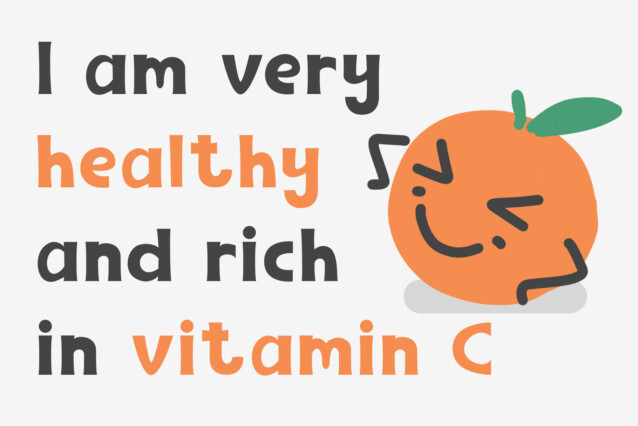
Namile Font
Namile Font is a delightful departure from the ordinary. Its quirkiness and fun factor set it apart from the crowd.
Crafted especially for eccentric displays, Namile injects a delightful dash of whimsy and vibrancy into your creative projects.